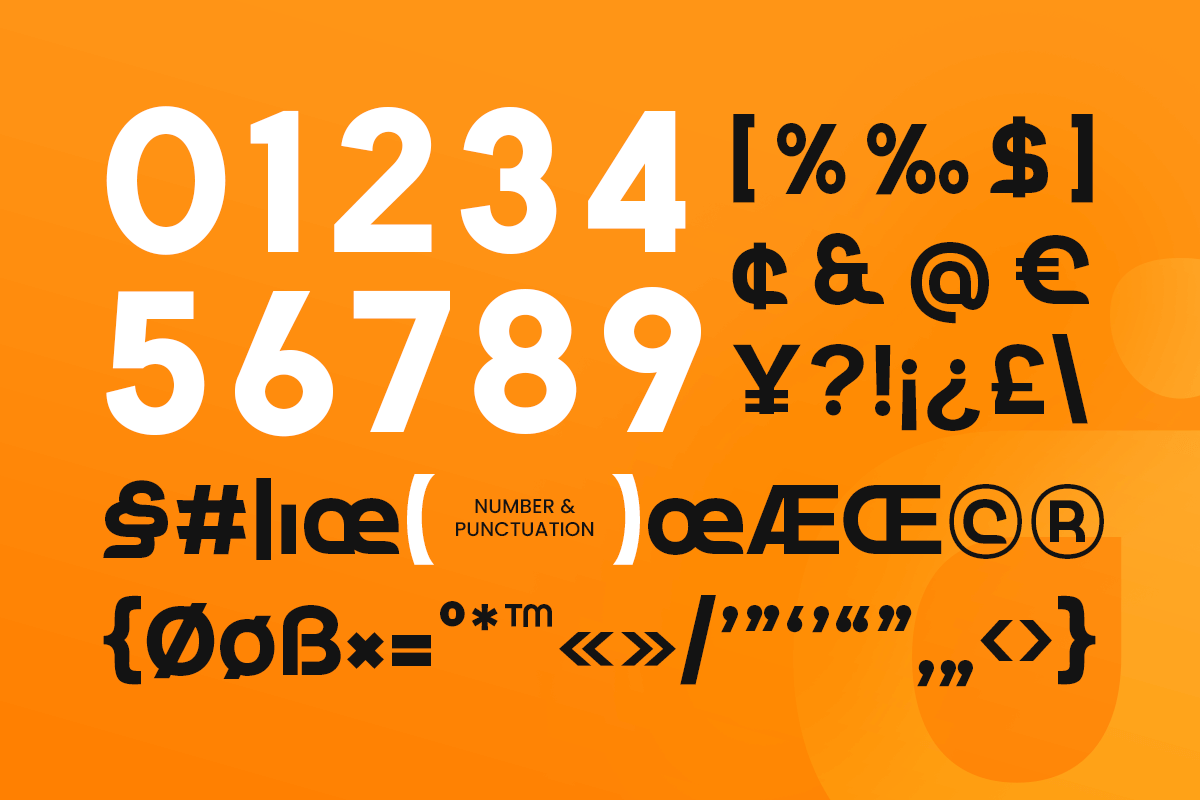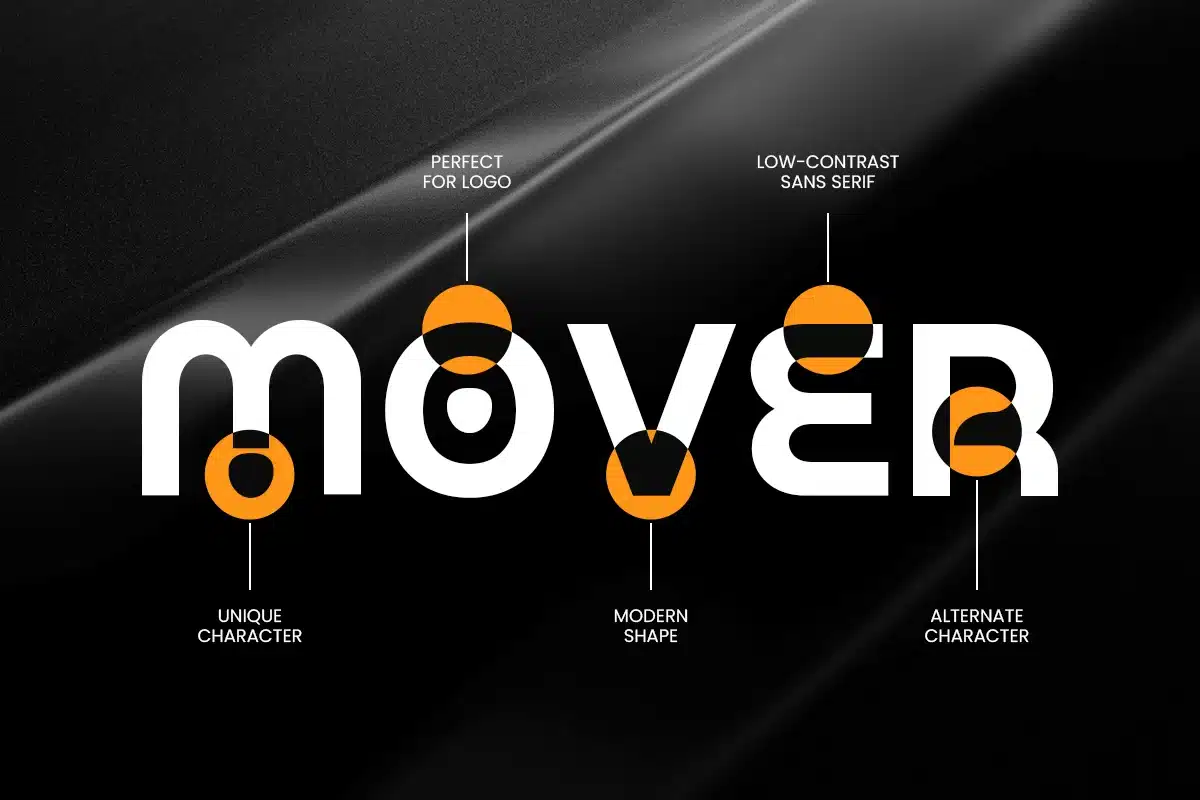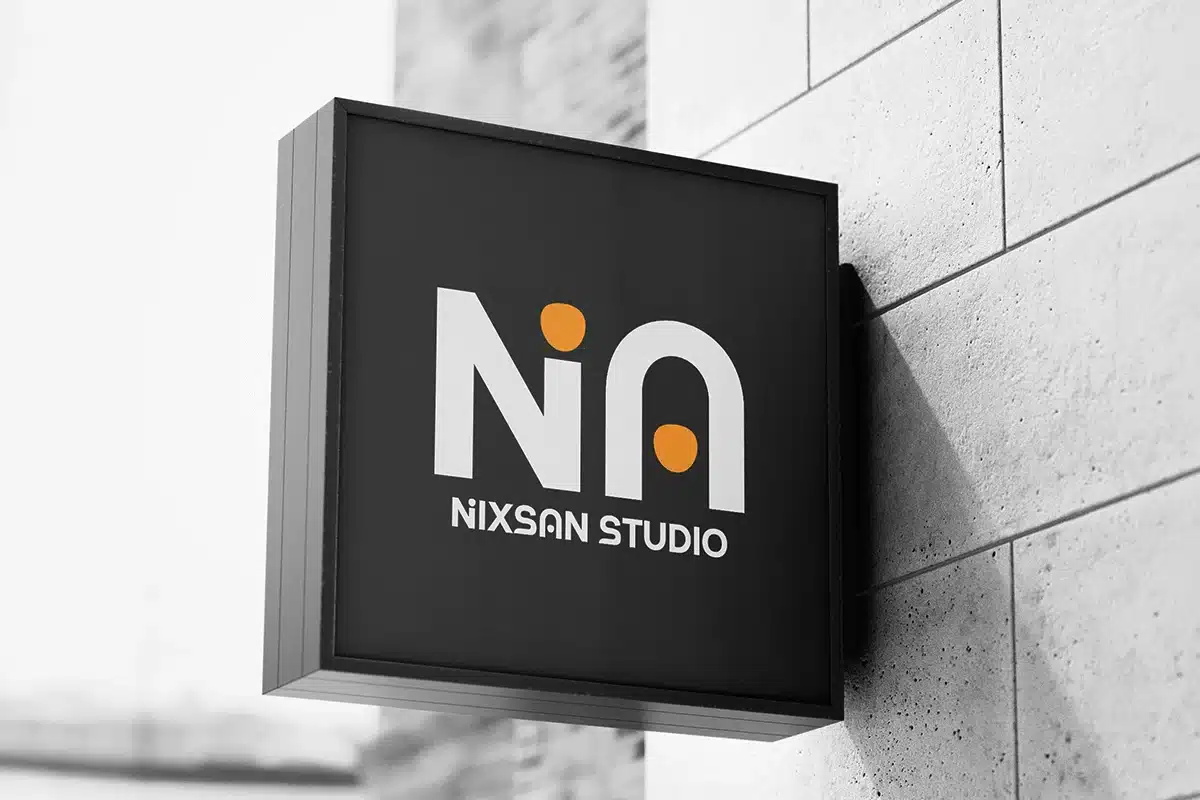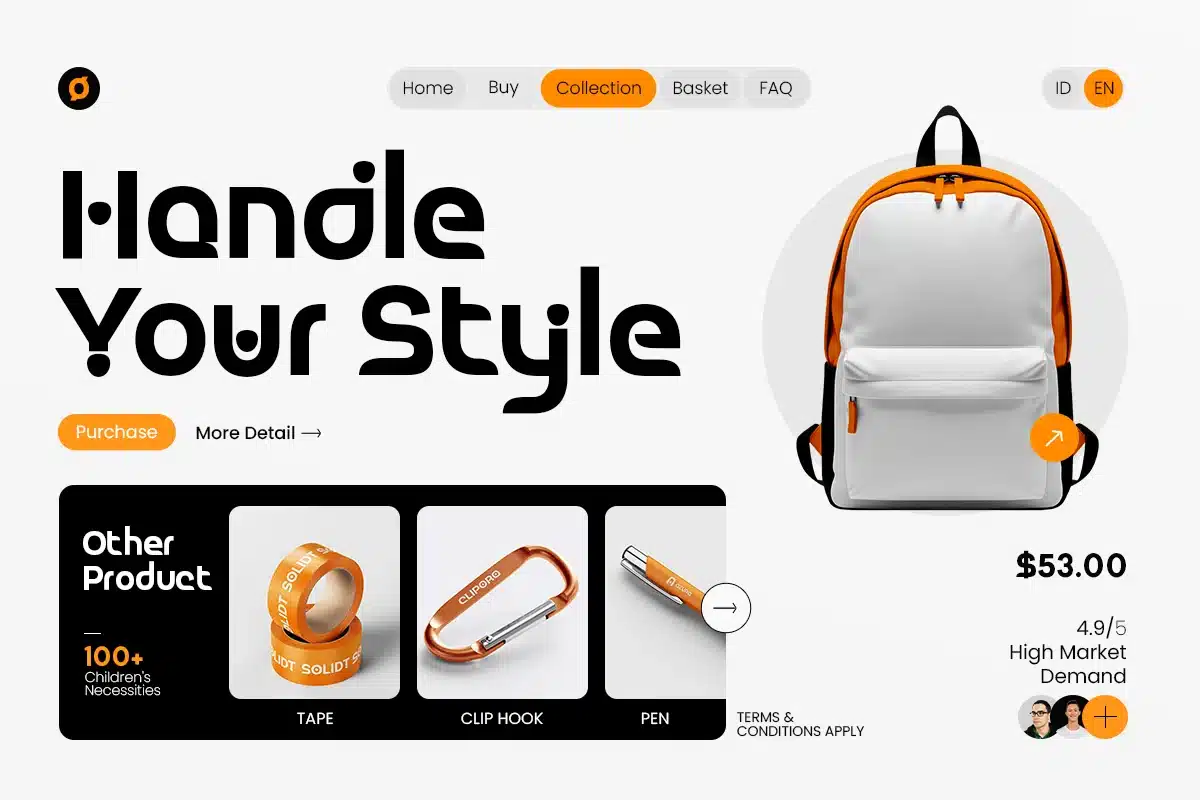
Agoda – Geometrics Technology Logo Font
AGODA is a geometrics technology logo font built to deliver a clean, structured, and instantly recognizable brand voice. With precise geometry and distinctive character shapes, this typeface creates a modern look that feels smart, efficient, and design-forward—perfect for contemporary identities.
Made for logo design and brand systems, AGODA works beautifully across wordmarks, packaging, website headers, UI design, social media graphics, and modern editorial layouts. Its geometric construction keeps typography crisp and professional, while the unique details help your branding stand out without sacrificing clarity.
Whether you’re crafting a startup logo, a corporate identity refresh, or a minimal product brand, AGODA provides a sleek geometric foundation that keeps your designs consistent, modern, and memorable across print and digital use.
Inspiration Behind AGODA
AGODA is inspired by modern geometric typography and minimalist brand systems—where precision, balance, and clarity lead the visual identity. The font is crafted to feel structured and contemporary, supporting clean logos and smart digital branding with distinctive personality.
AGODA Font Features
- Geometric letterforms with a unique logo-focused character
- Clean structure optimized for modern branding and wordmarks
- Strong readability for headlines and identity applications
- OpenType features for polished professional typesetting
- Logo design, wordmarks, and brand identity systems
- Startups, tech brands, and corporate branding
- UI/UX, website headers, and digital product design
- Packaging, labels, signage, and modern print layouts
- Social media campaigns and clean promotional graphics